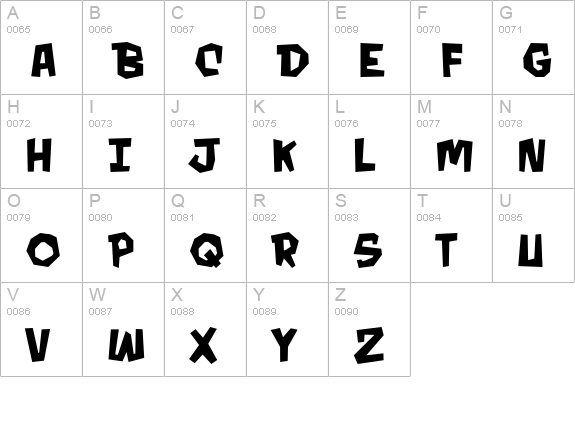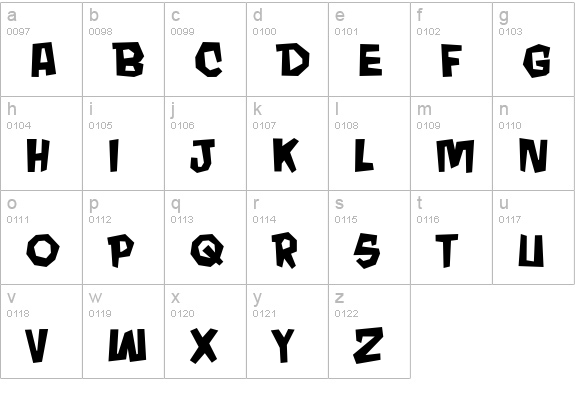
MondoBeyondo BB Bold Font Details
MondoBeyondo BB Bold is a strong, high-contrast variant in the MondoBeyondo typeface family \xE2\x80\x94 well suited to headlines, attention-grabbing titles, and strong calls-to-action.